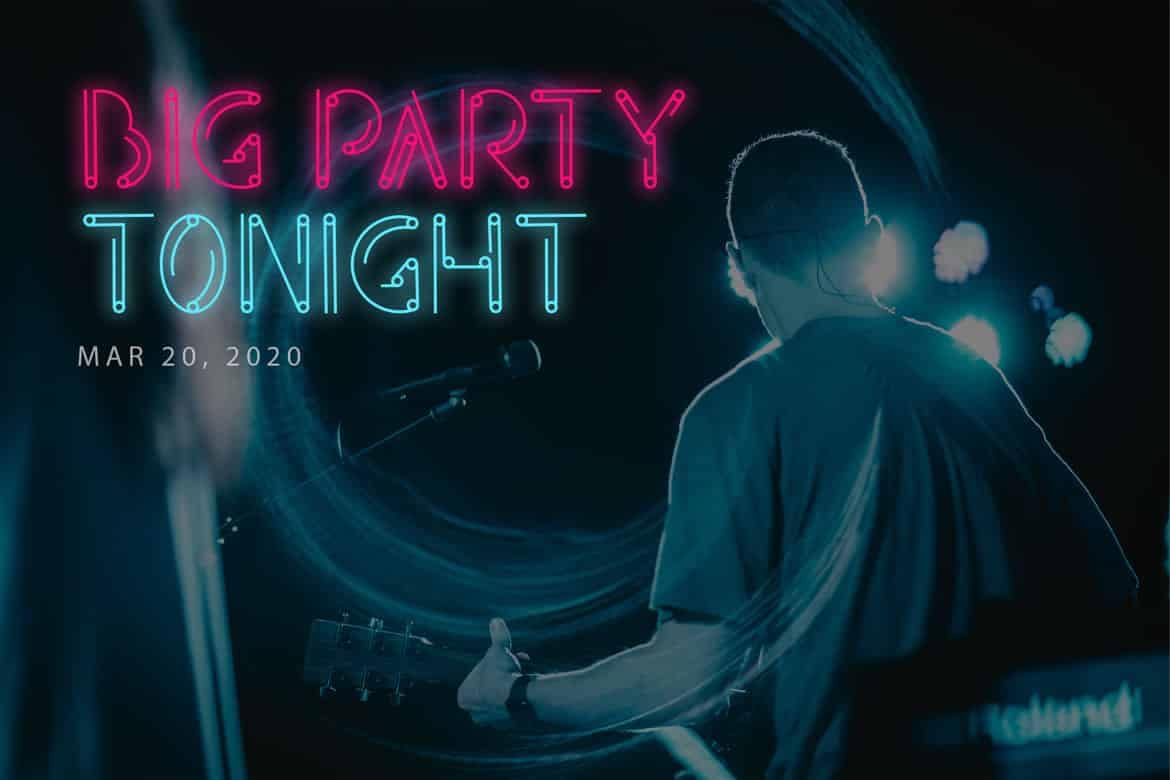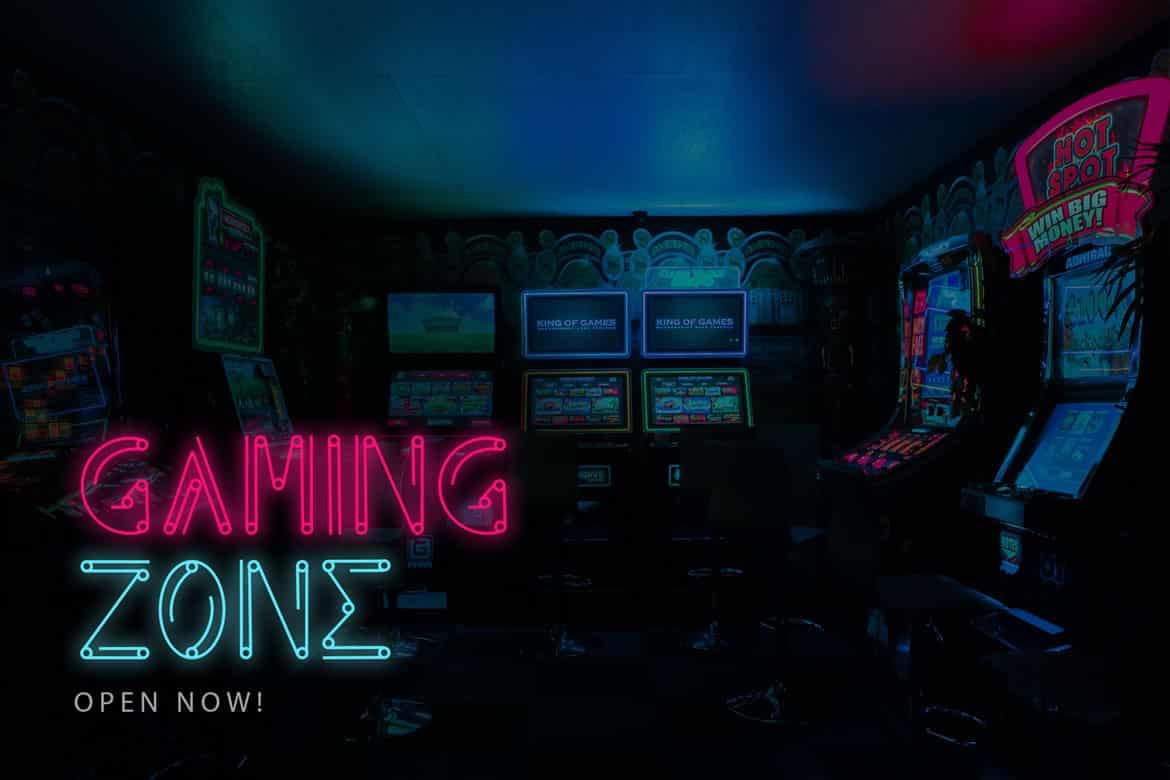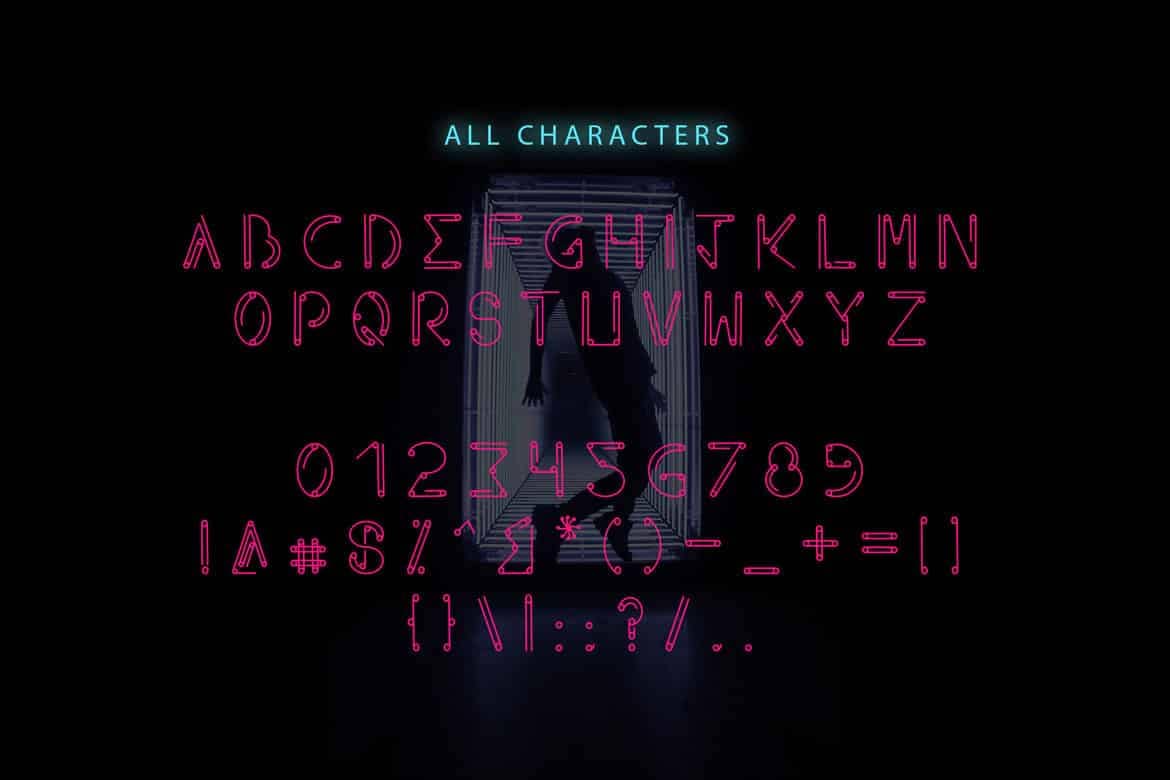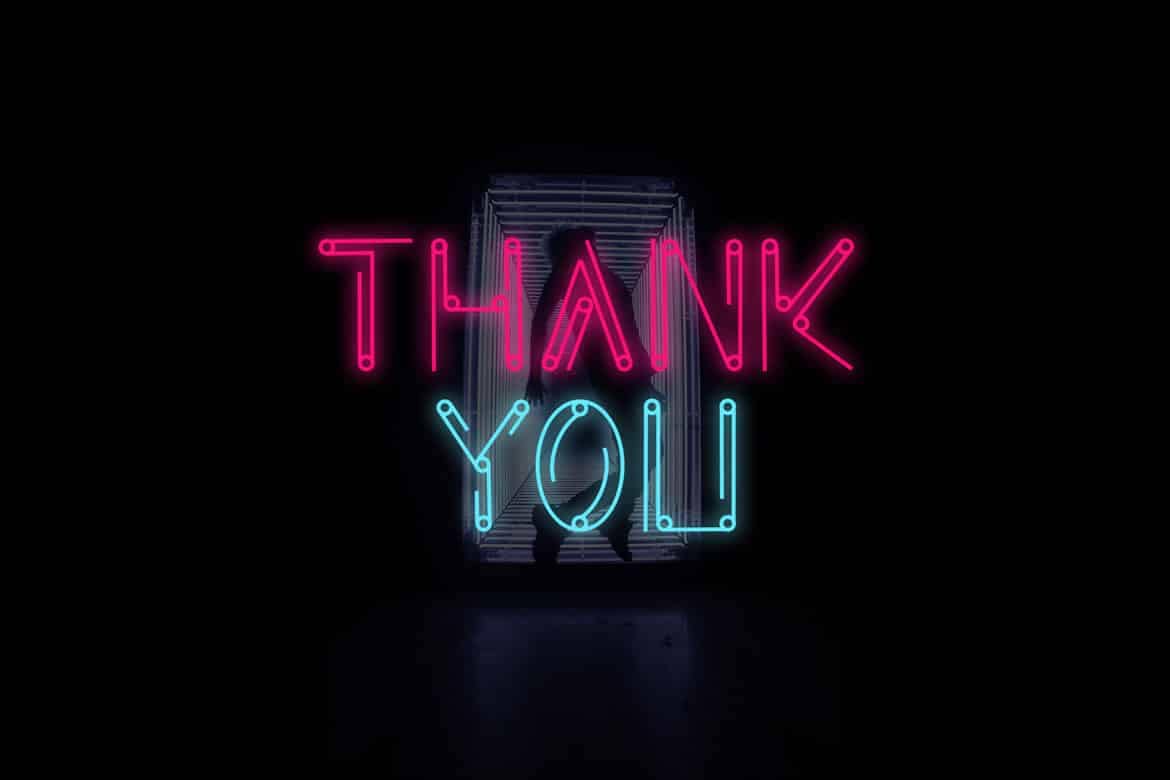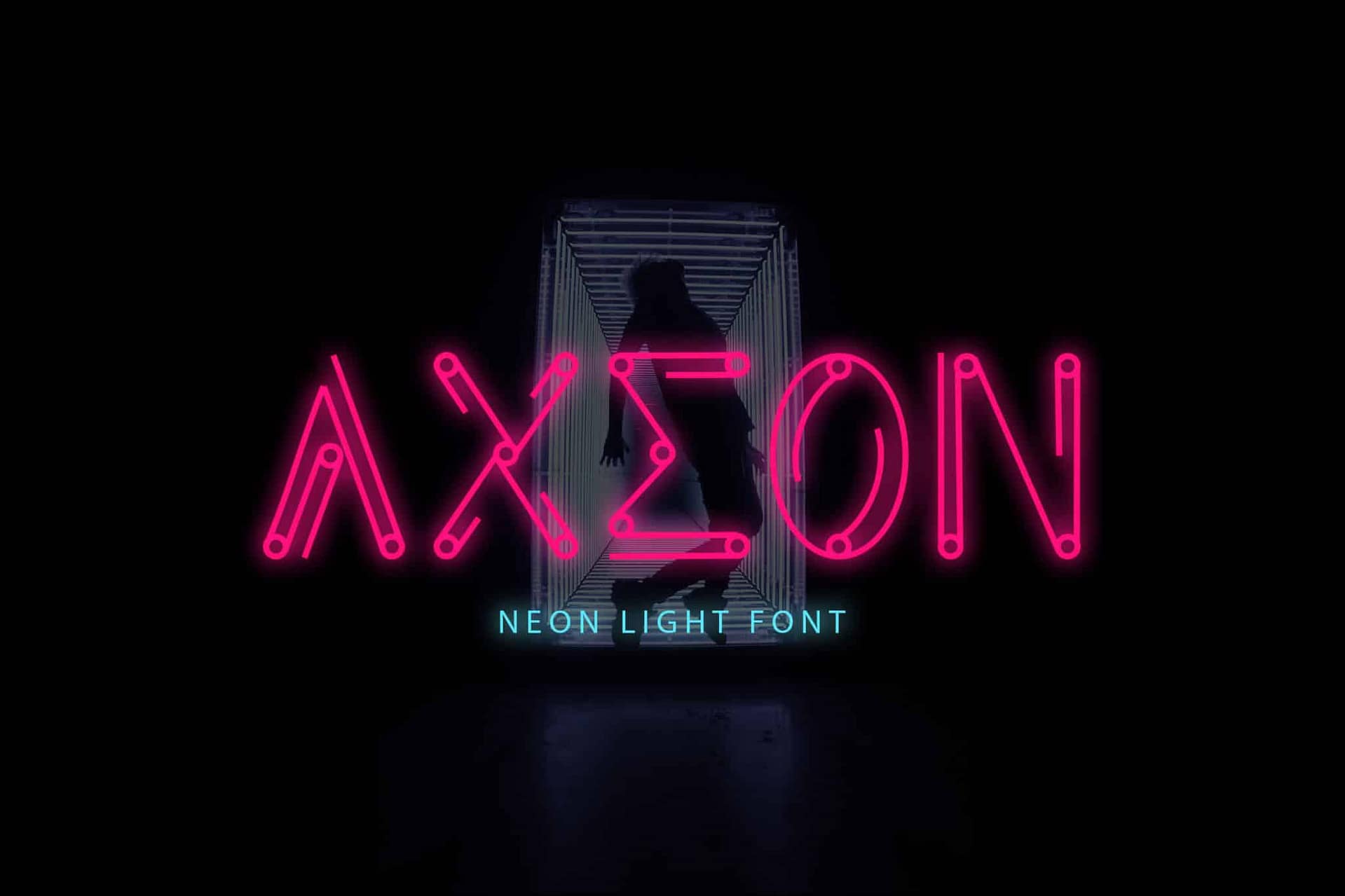
Axeon is a neon light typeface with elegant in every single letter. This font looks modern, sci-fi, futuristic, future, readable, stylish, catchy and easy to use.
Axeon Font is the best choice for your professional design projects, including : logo, poster design, t-shirt, headline, flyer, cd cover album, quotes, business card, branding, magazines, social media, advertisements, product designs, or something that need modern or futuristic looks.
• Basic Latin A-Z and a-z
• Numbers
• Symbols
Axeon – Futuristic Typeface